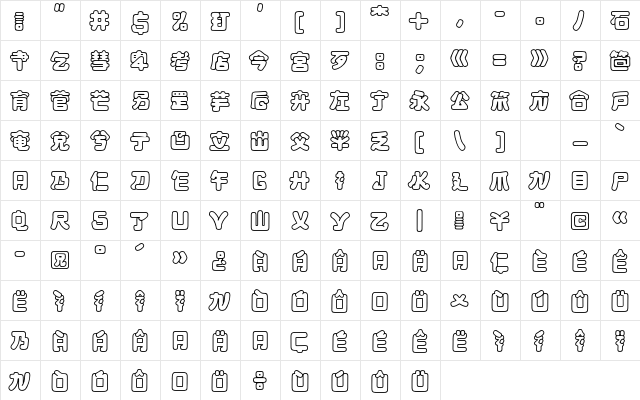
Maximage Jululu Outline Regular
| Foundry | Maximage |
| Designer | Maximage |
Design Context for Maximage Jululu Outline Typeface
Maximage Jululu Outline brings ornamental detail and strong personality to headlines and identities, where visual impact matters more than quiet functionality.
Font Pairing: Pair with a clean neutral sans-serif for body copy to let Maximage Jululu Outline's character lead without overwhelming the composition.
Pro Tip: Treat Maximage Jululu Outline as the centrepiece of your typographic hierarchy. One strong heading set in a decorative face can carry an entire layout.